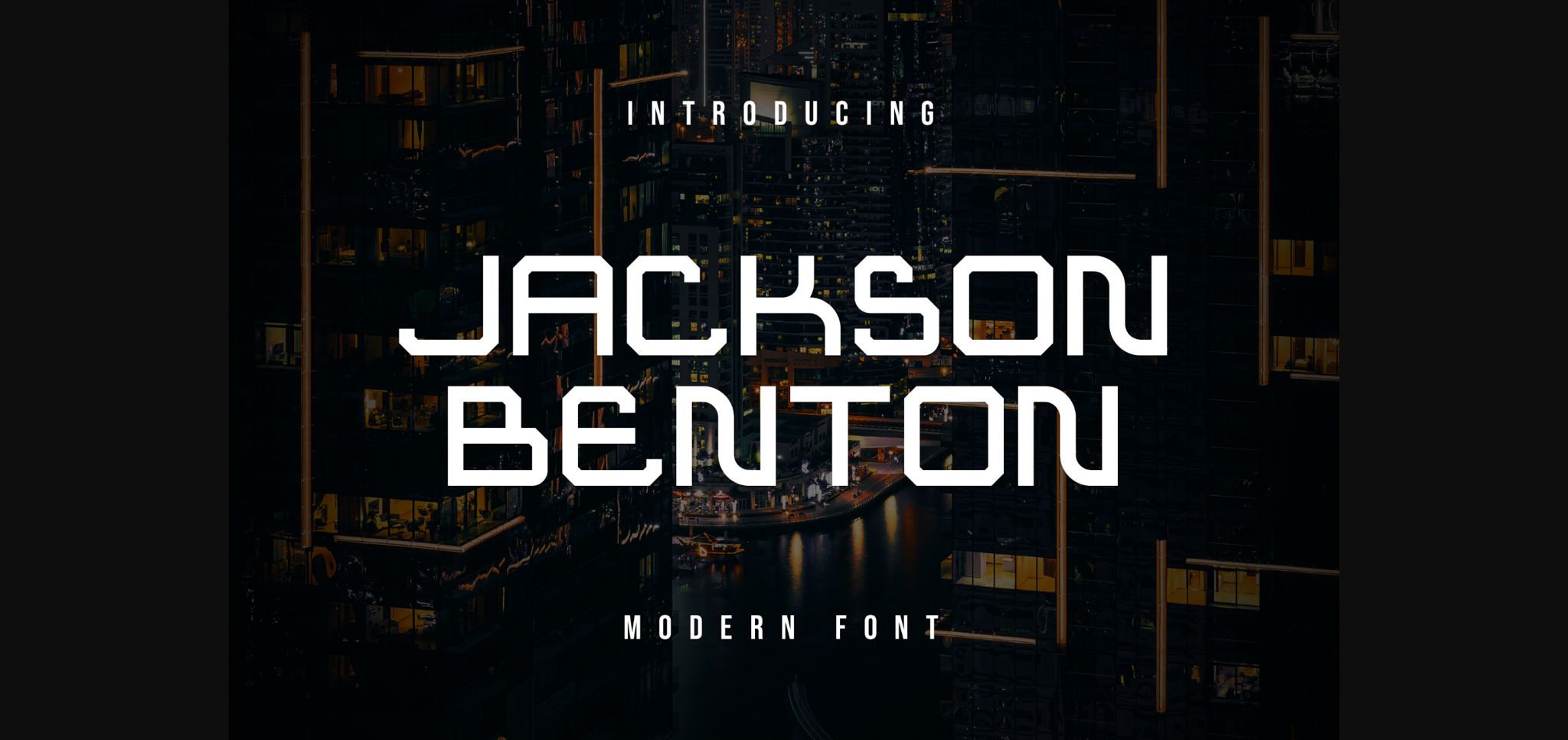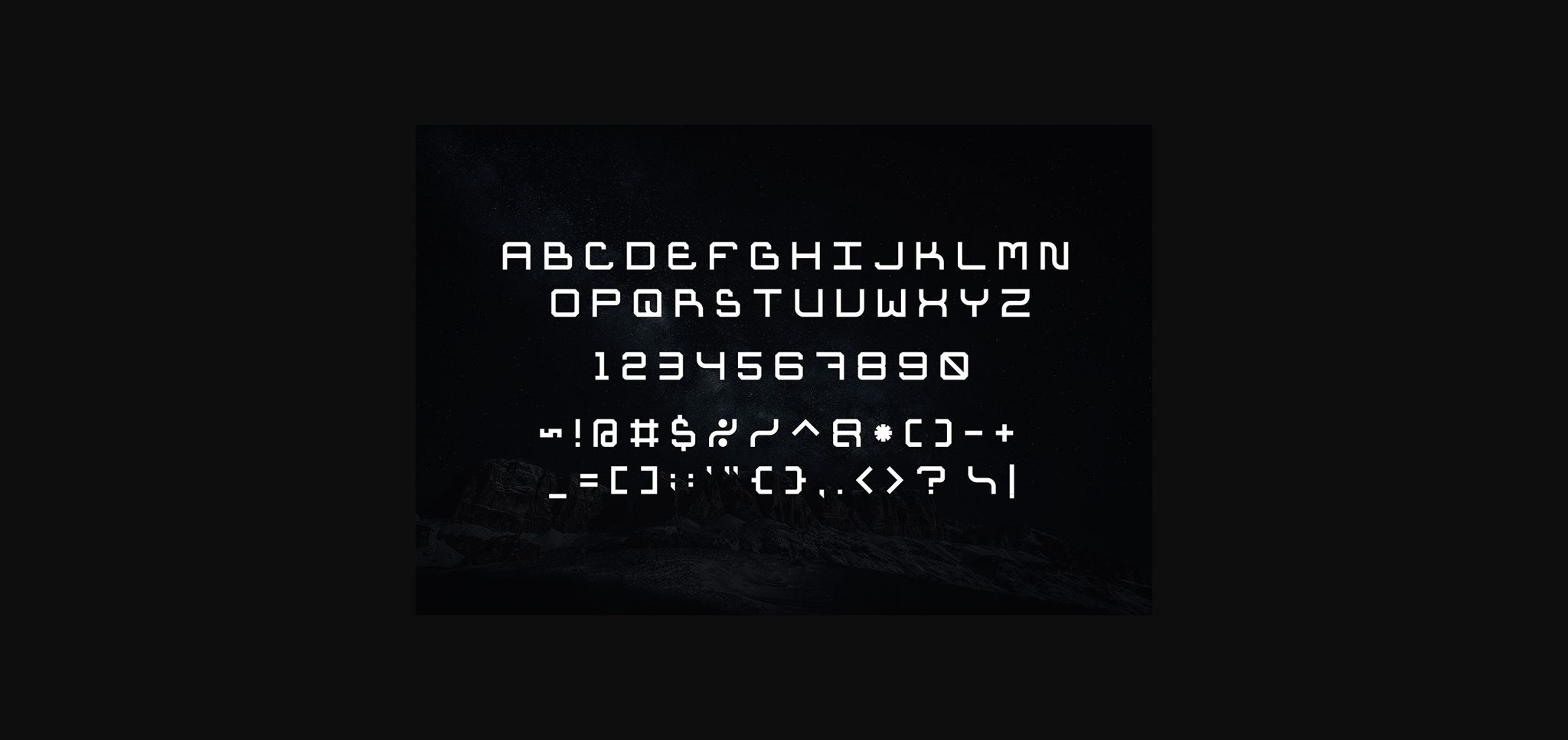
About Jackson Benton Font
Jackson Benton is a modern font that we designed with original touch for your needs.
This cool font is complete with Uppercase, Lowercase, and Numeric & symbols. This very strong and sharp font is perfect for titles, typography, posters, magazines, brochures, packaging, Websites, and much more for your design needs, making your designs cooler.